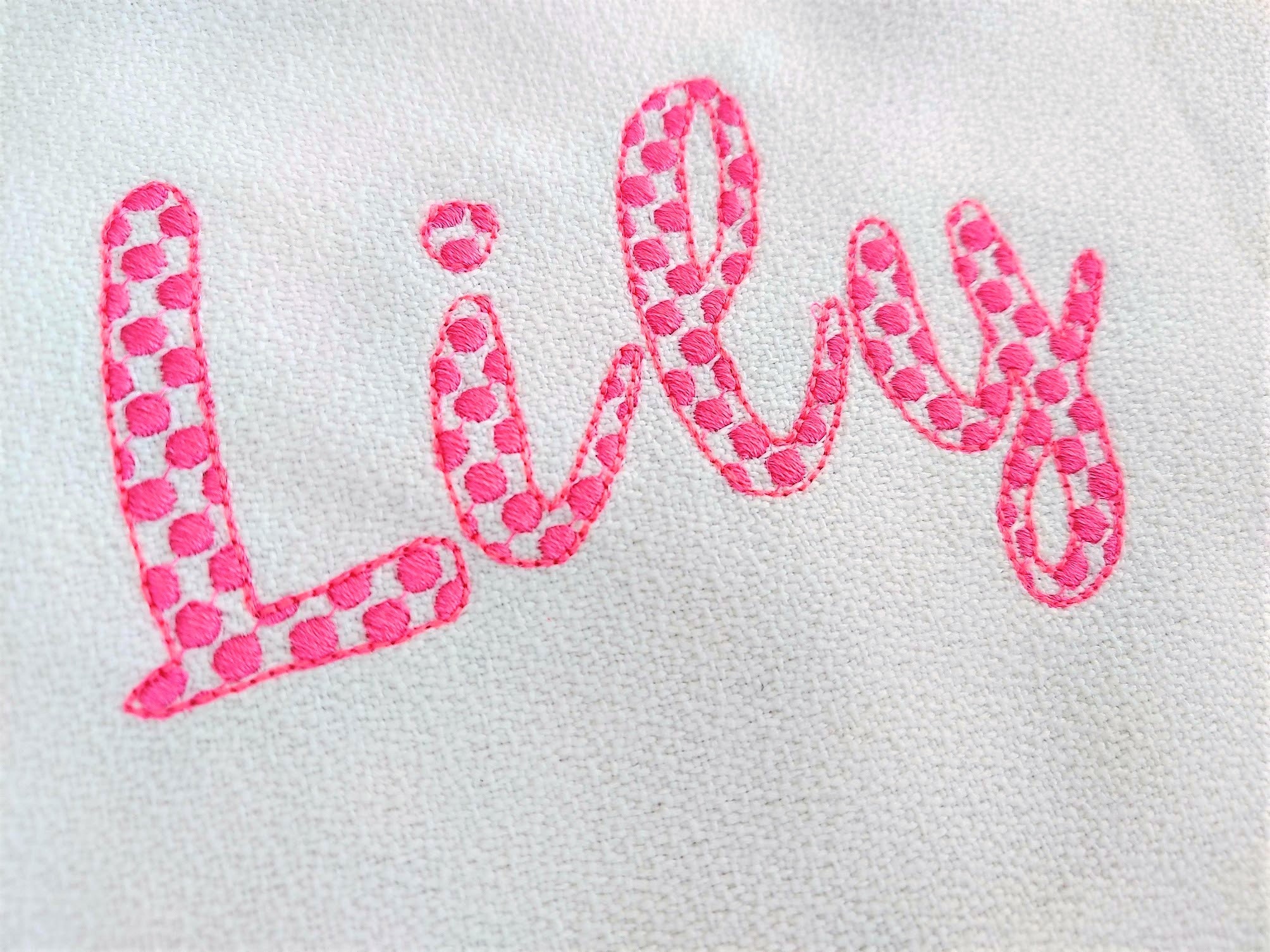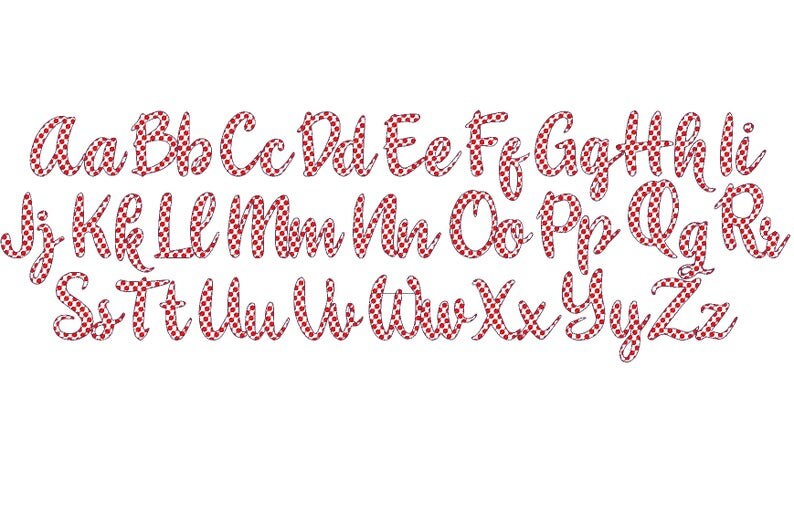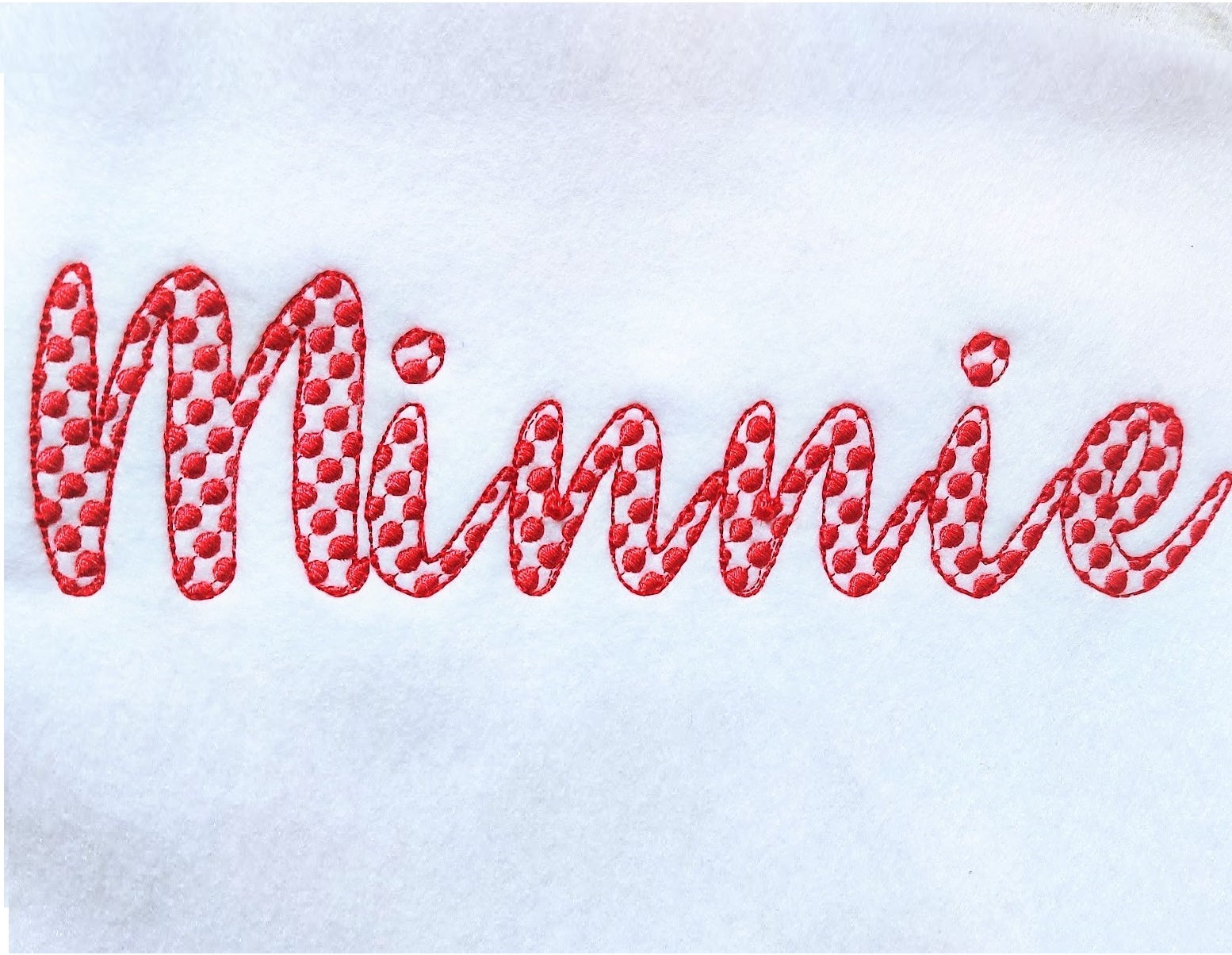
Minnie mouse Polka DOT calligraphy font light sketch outline machine embroidery designs alphabet letters 1.5, 2, 3 & 4in included BX, vp3, xxx, pes and other embroidery formats
Polka dots are part of the embroidery. They are stitches. This is light stitch font, so your design will be transparent with polka dots there. It looks stunning!